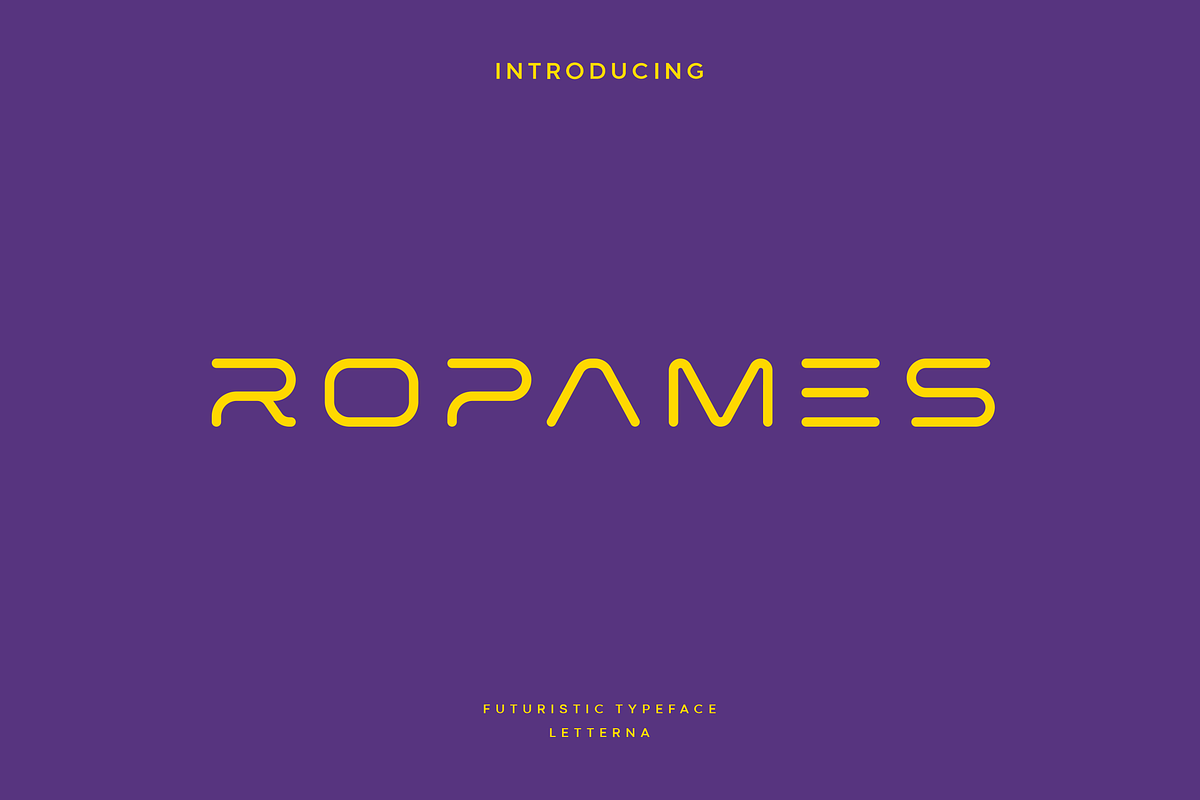
Ropames - Modern Futuristic Typeface Free Download
Ropames Modern Futuristic Typeface Free Download
Ropames Modern Futuristic Typeface Free Download is a cutting-edge font designed for the future. With sleek lines, geometric precision, and a minimal yet powerful aesthetic, Ropames is ideal for tech branding, sci-fi posters, digital interfaces, gaming titles, and modern product packaging.
Its innovative letterforms and clean design give your projects a high-tech vibe while ensuring readability across all formats. Whether you're crafting a futuristic logo or an app UI, Ropames brings clarity, style, and a forward-thinking edge.
This typeface is perfect for creators looking to break boundaries and explore bold visual identities. It commands attention without overwhelming your message.